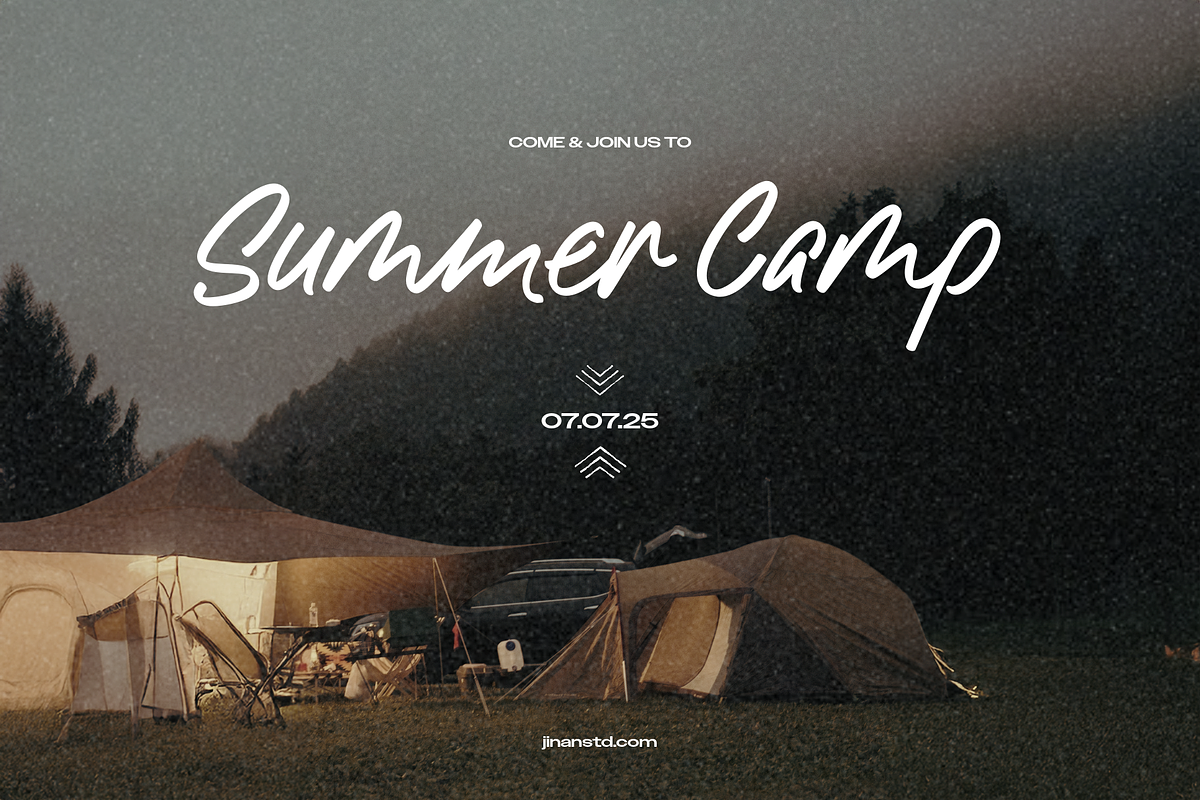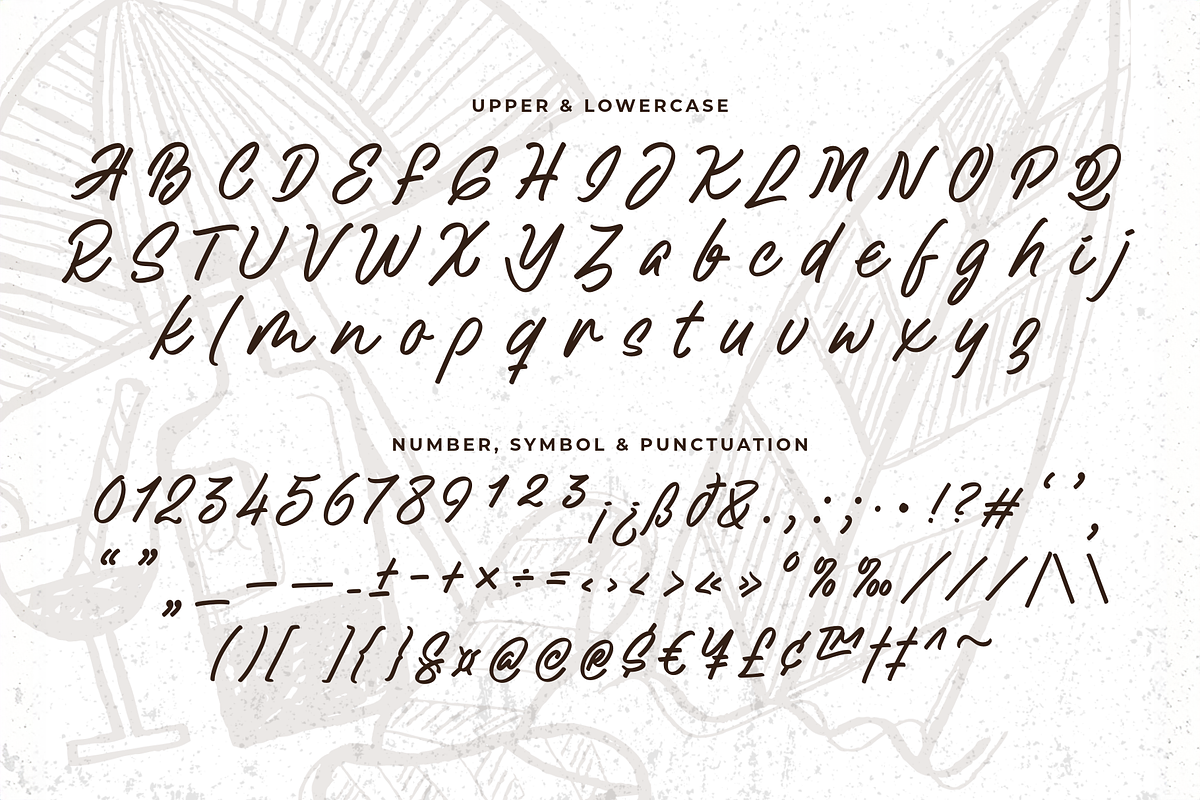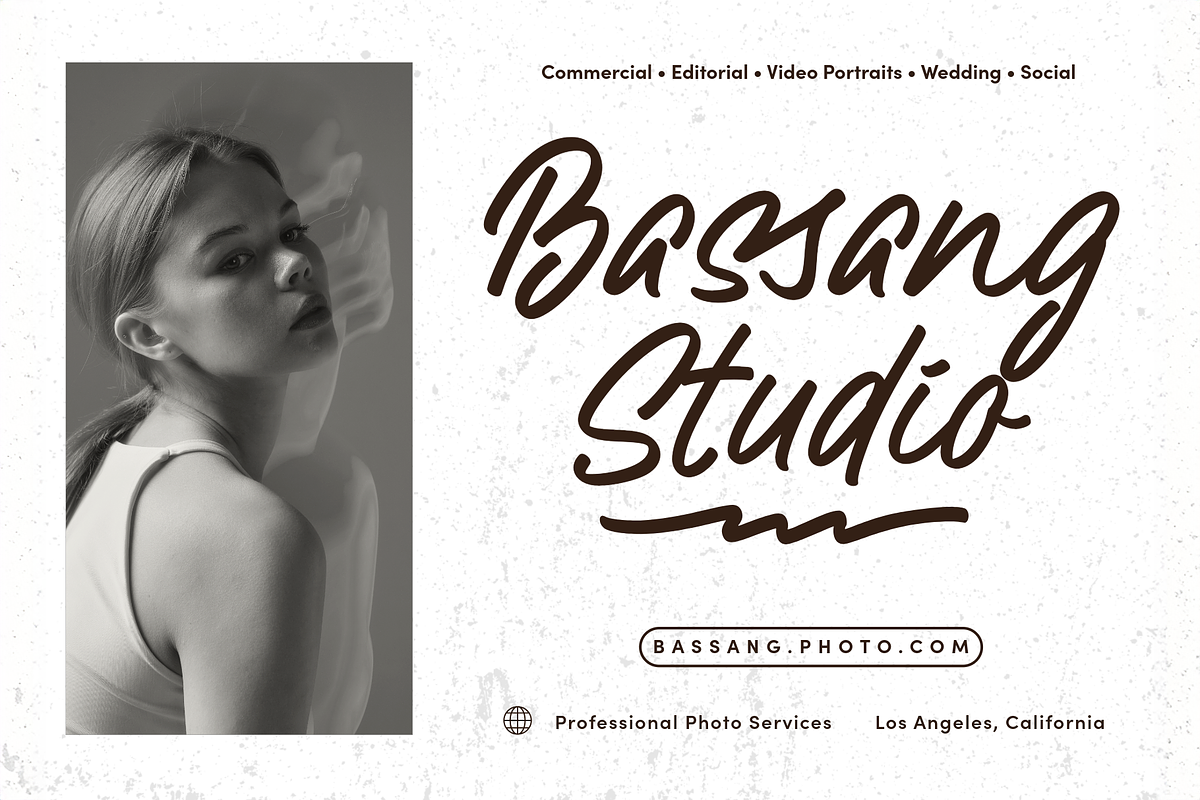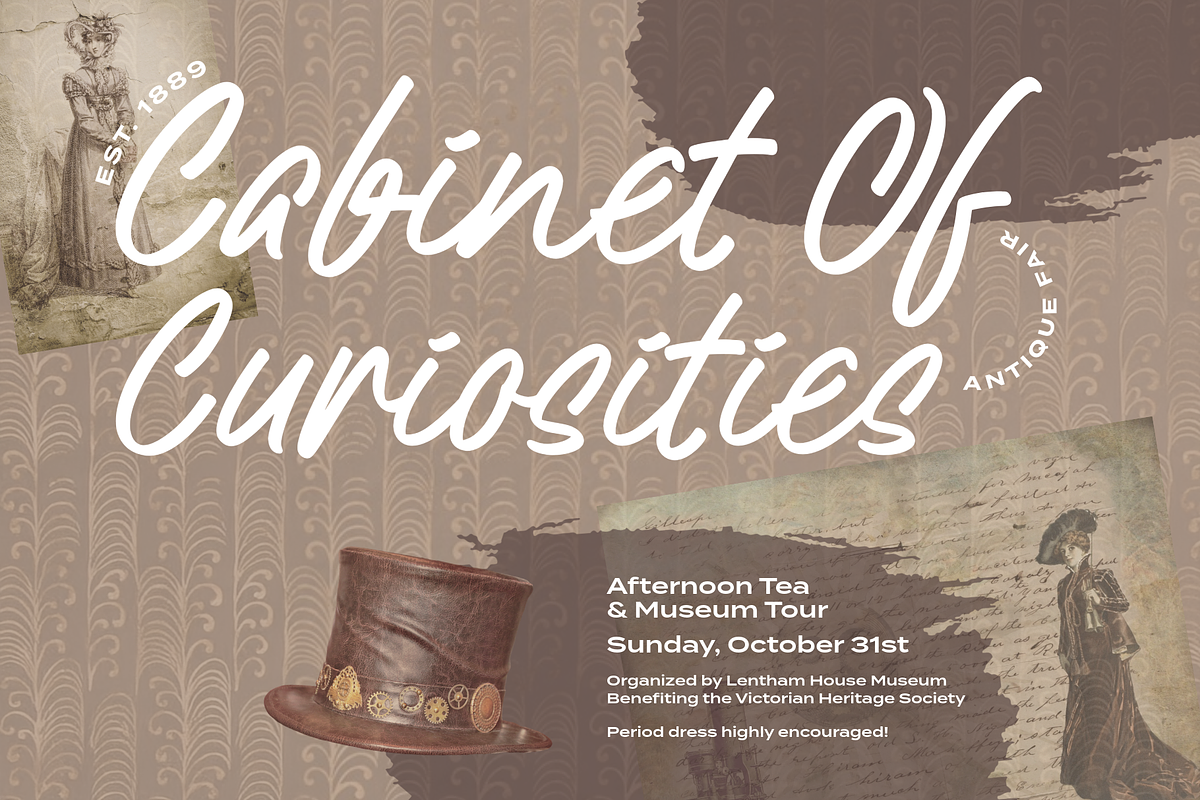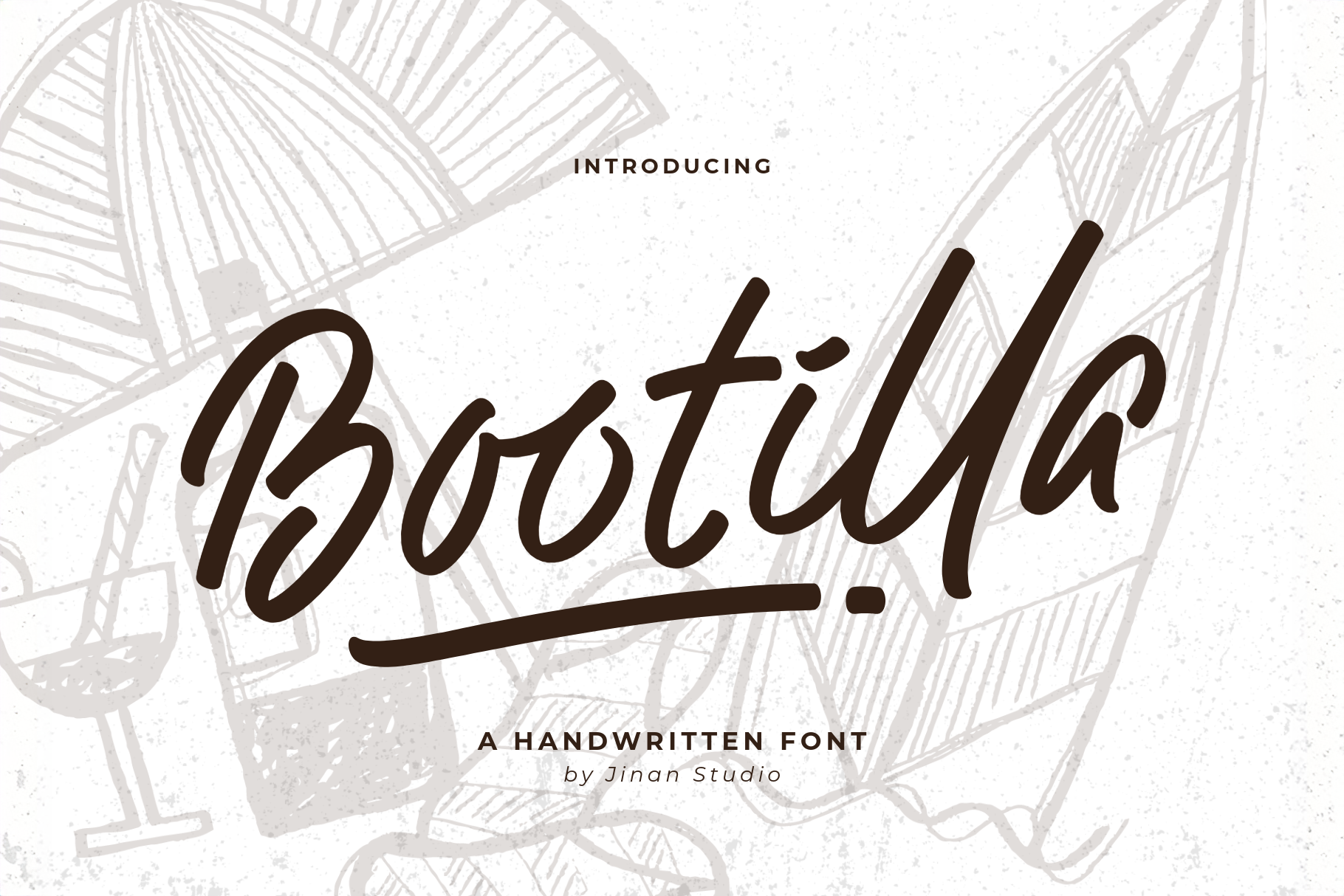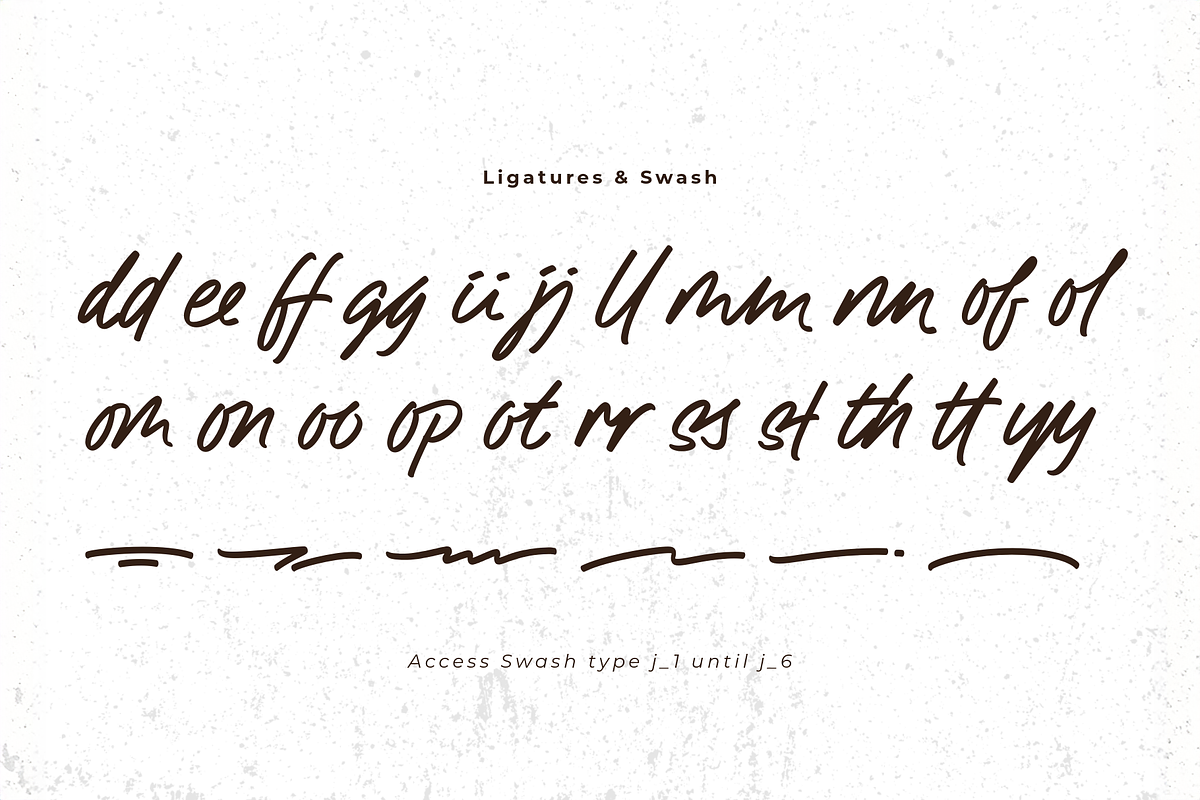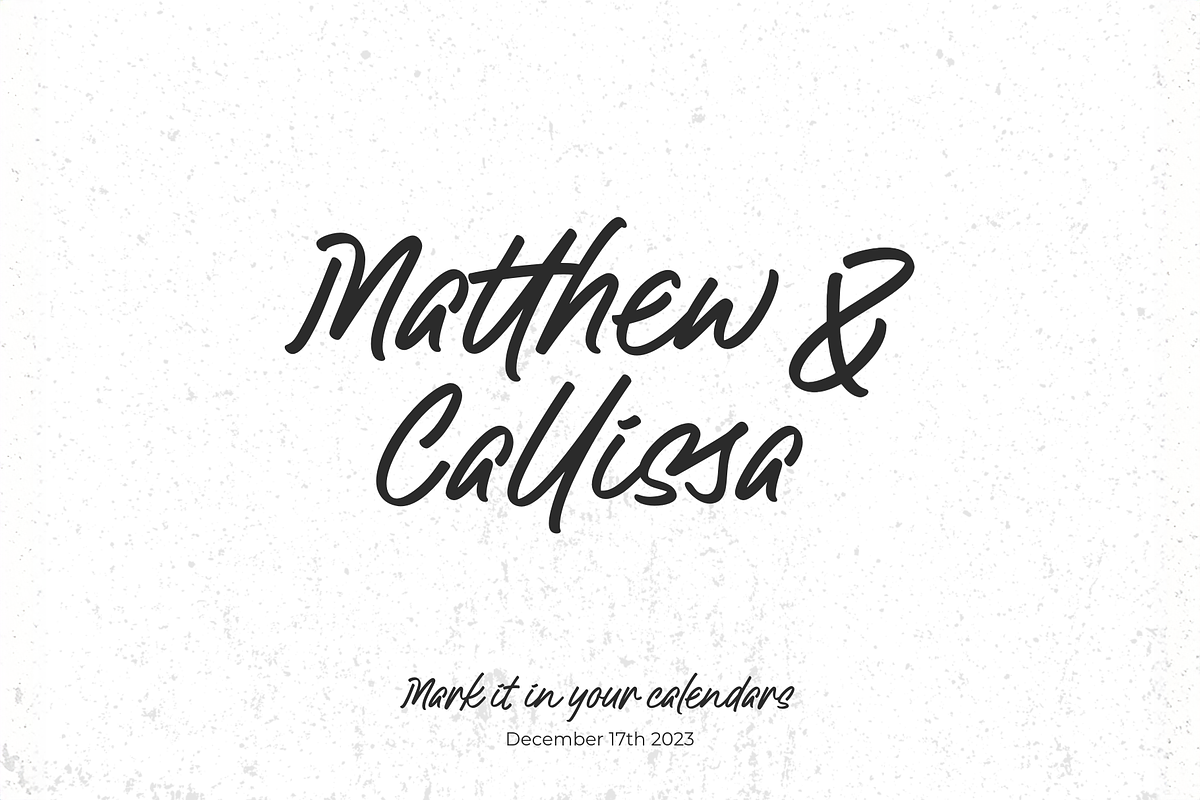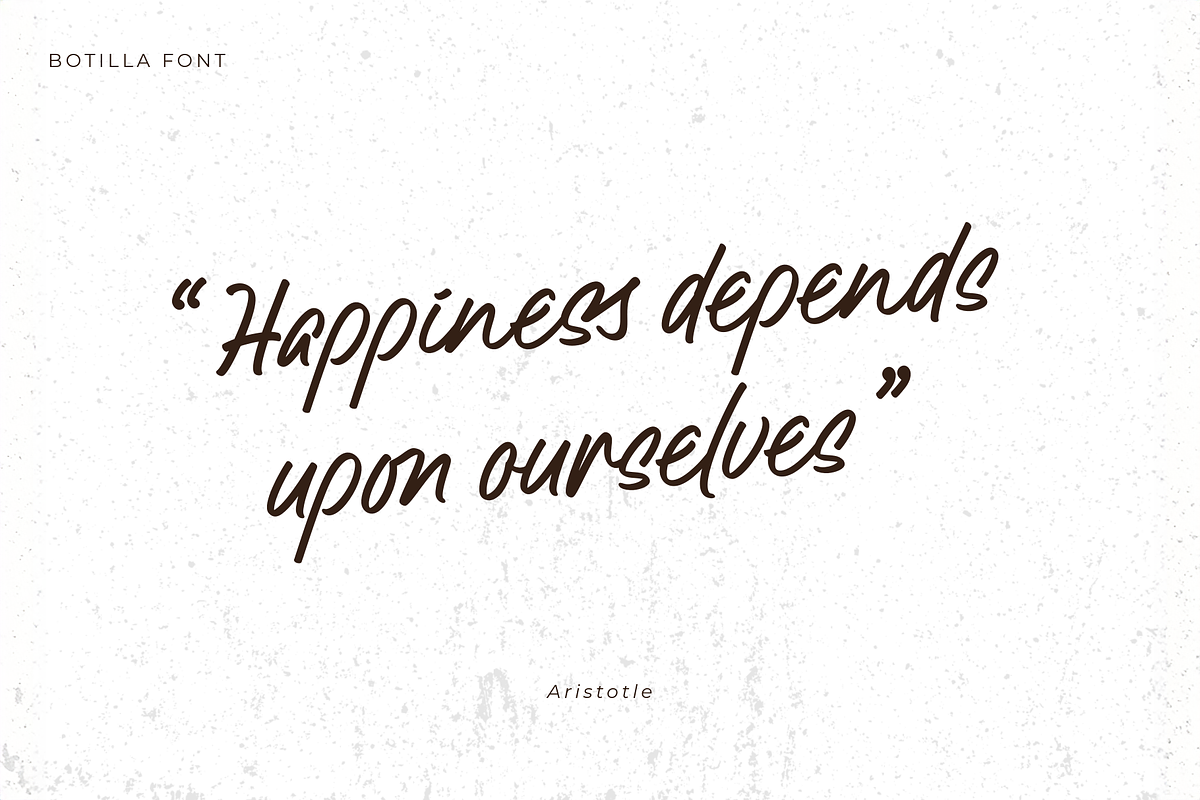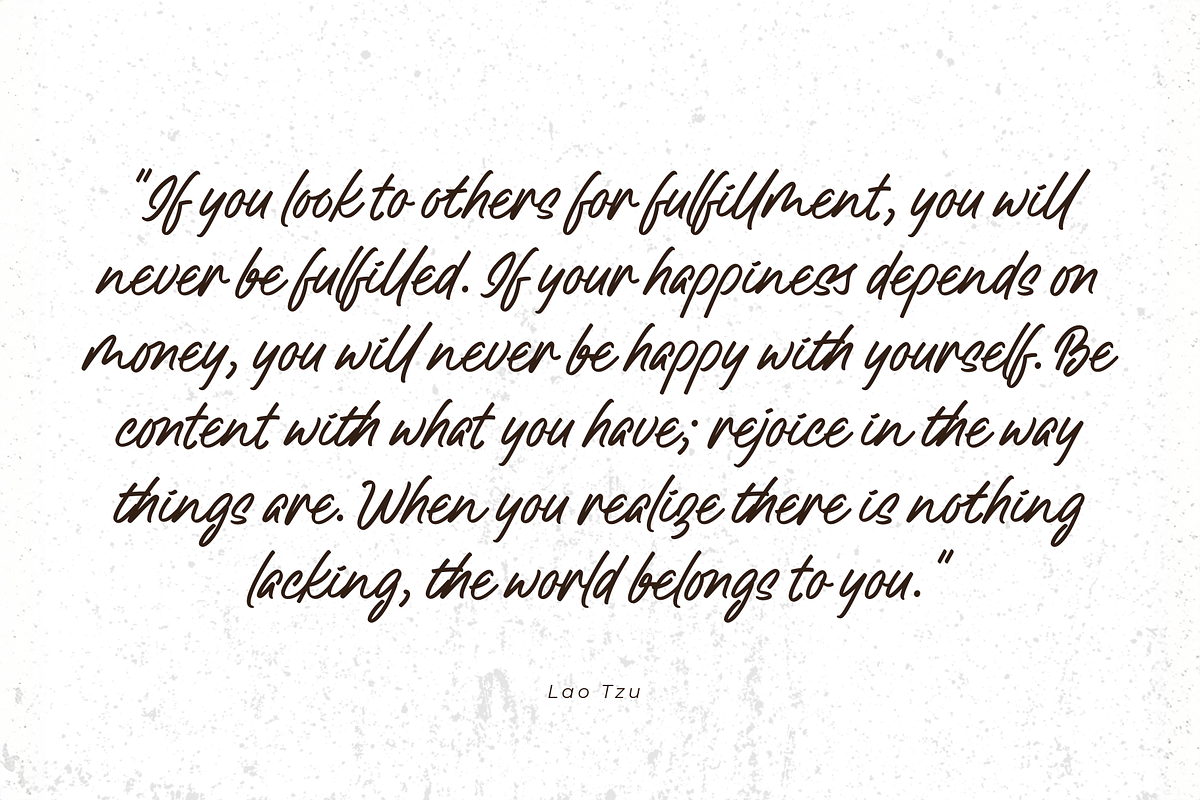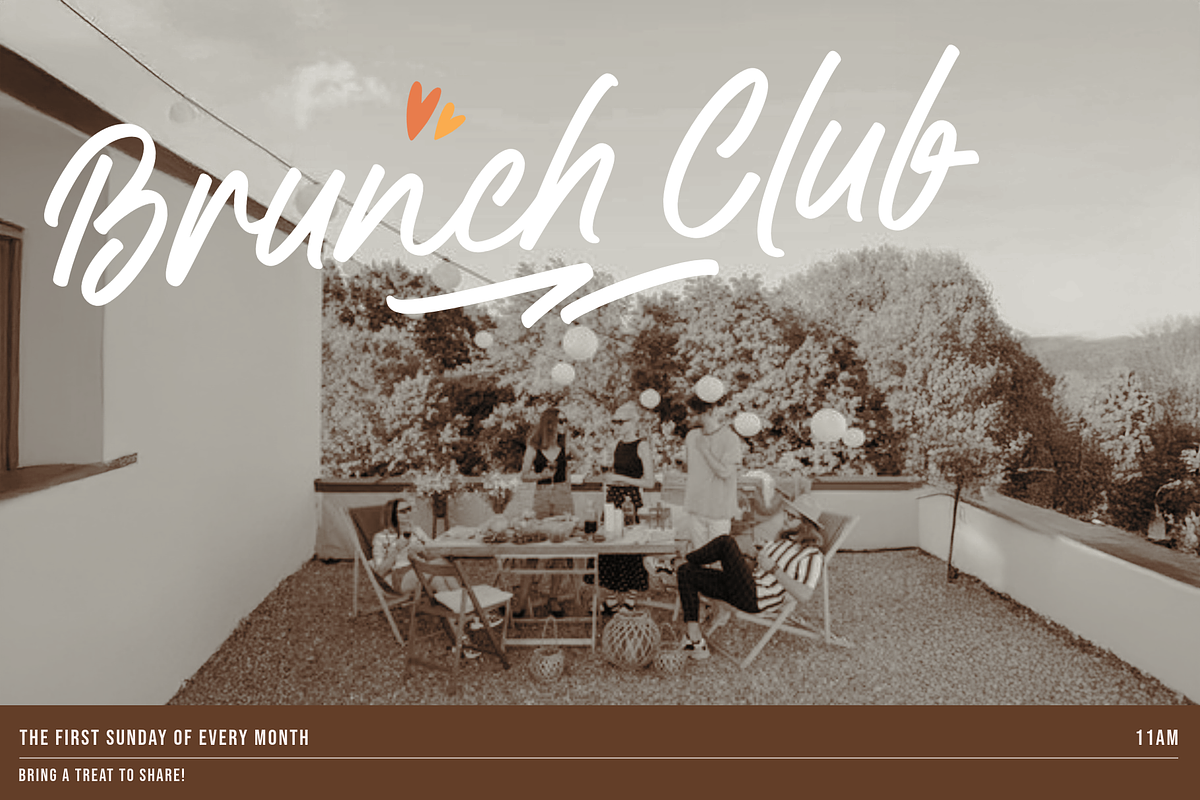
Bootilla - A Handwritten Font
Discover the empowering allure of Bootilla, an assertively bold yet smoothly drawn modern handwritten font. Ideal for brand identities, sleek logos, intriguing packaging, heart-touching quotes, and captivating social media designs. Bootilla’s flowing brush style exudes robust individuality, infusing every project with a sense of unique creativity and personal flair. Its harmonious balance of strength and elegance delivers artistry that captivates, turning the ordinary into extraordinary. Step into the dynamic world of Bootilla and elevate your designs to the next level of sophistication.
- A set of uppercase and lowercase glyphs
- Number, symbol, and punctuation
- Ligatures, and swashes
Type j_1 until j_6 to features swash, ligatures will automatically replace the standard letter pairs whenever available, when using any OpenType capable software.